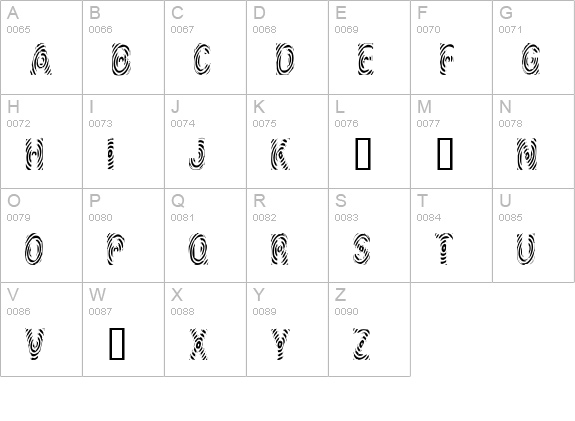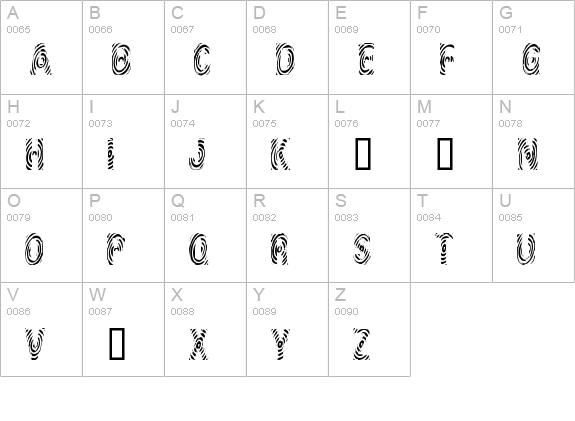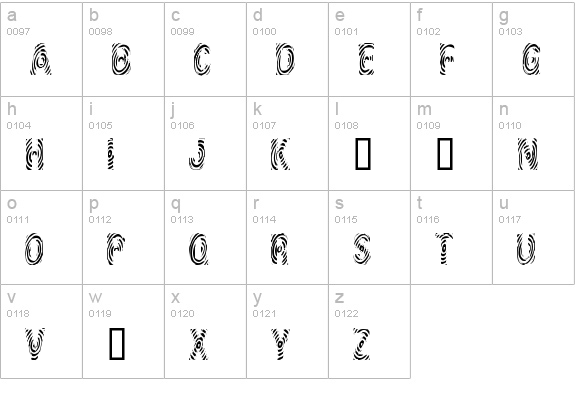
ID SupernovaSW Font Details
Introducing ID SupernovaSW, a captivating and modern font that will add a touch of cosmic flair to any creative project. This font boasts a stunningly unique design, inspired by the celestial wonders of the universe. Its intergalactic charm is sure to capture attention and ignite imagination. With its sleek and futuristic letterforms, ID SupernovaSW perfectly blends elegance and innovation. Each character is meticulously crafted, creating a harmonious balance between boldness and refinement. The fluid lines and geometric shapes effortlessly convey a sense of movement and energy, making this font truly mesmerizing. Whether you are designing a poster, logo, website, or any other visual masterpiece, ID SupernovaSW will elevate your work to new heights. Its versatility allows it to adapt to a wide range of creative projects, from futuristic sci-fi themes to contemporary and minimalist designs. What's more, ID SupernovaSW is freely available to download at FontsMarket.com. This means that designers and enthusiasts alike can access this extraordinary font without any cost, making it an invaluable resource for those seeking to add a touch of cosmic magic to their creations. So, why wait? Unlock the power of the stars with ID SupernovaSW and let your imagination soar to new galaxies. Download this captivating font today and embark on a journey of infinite creativity.